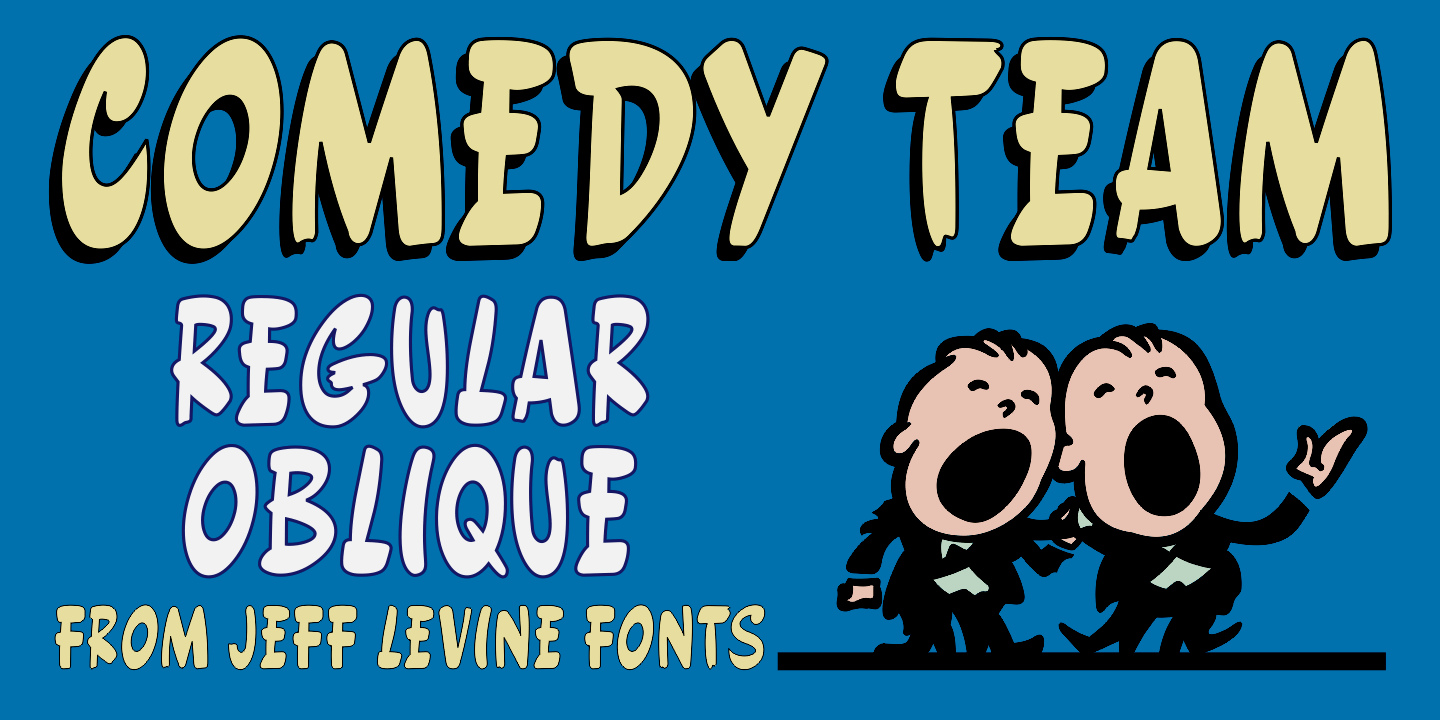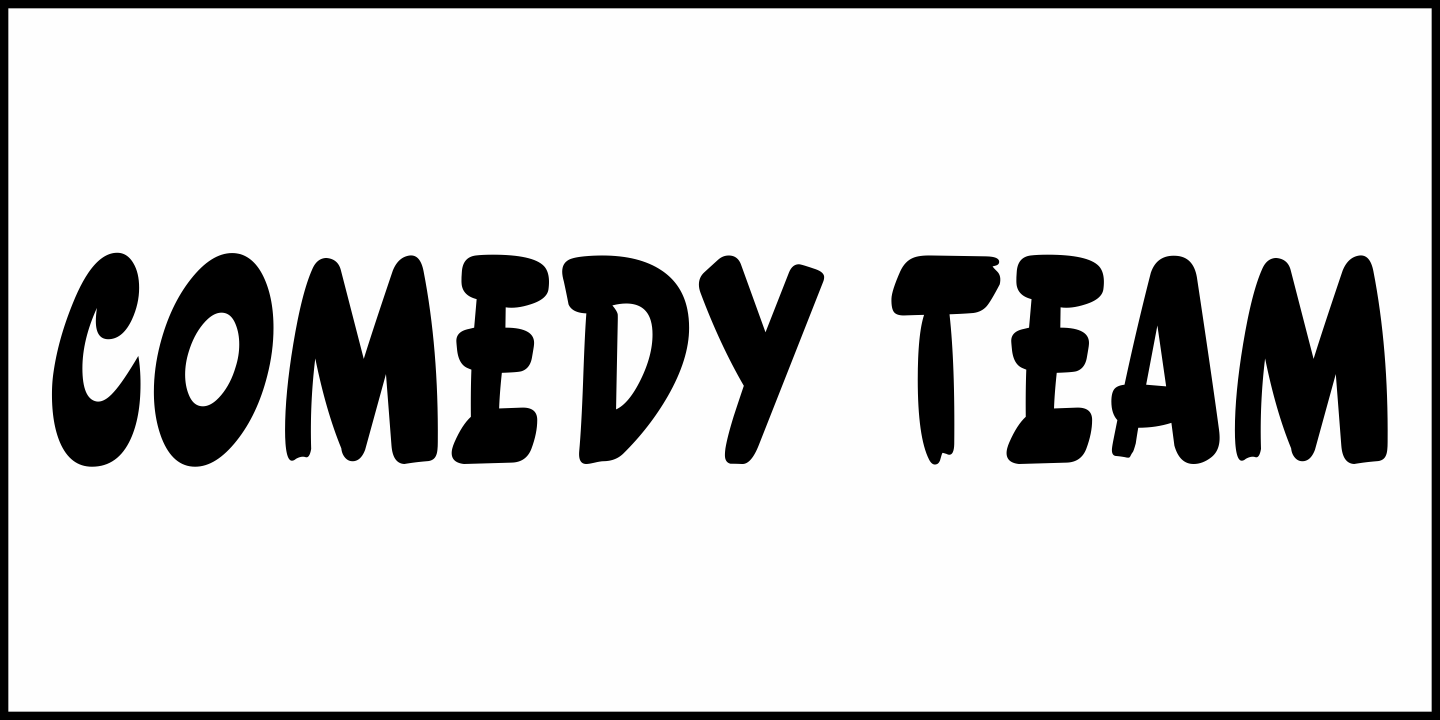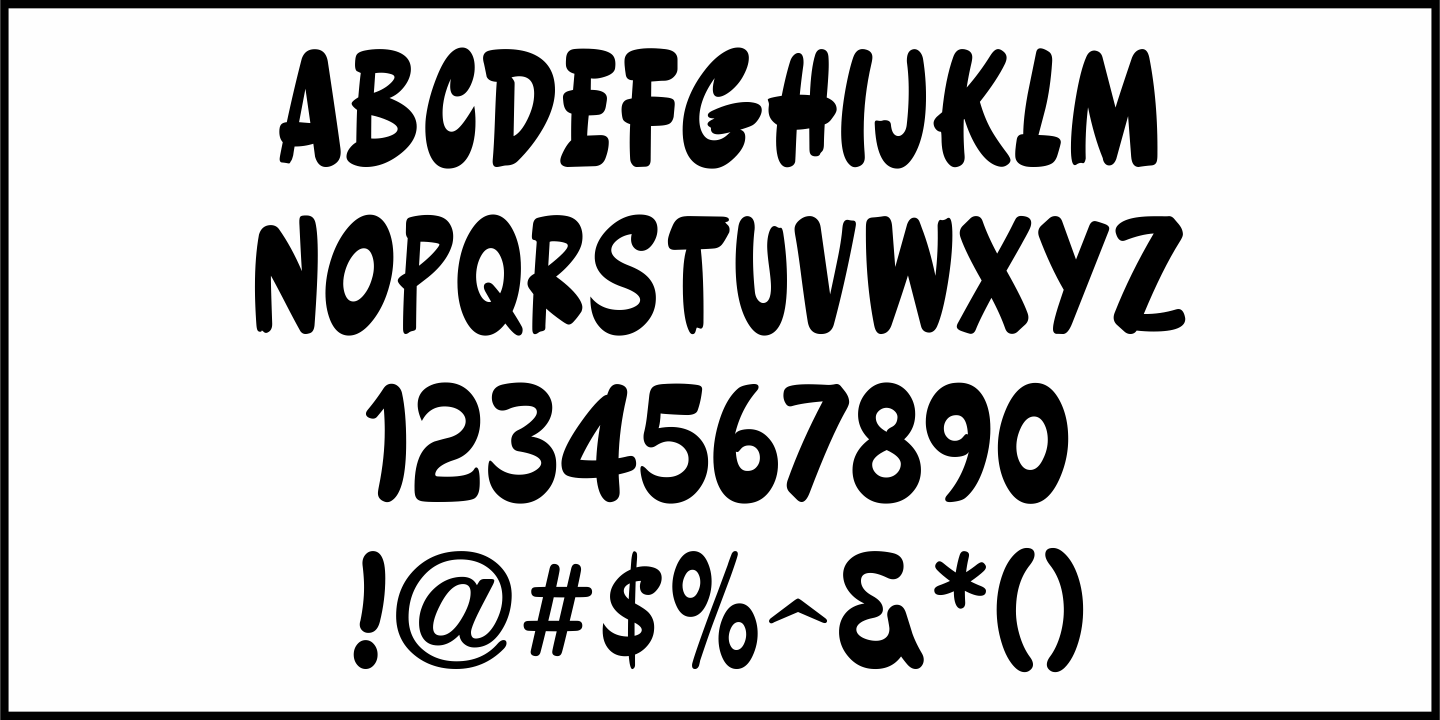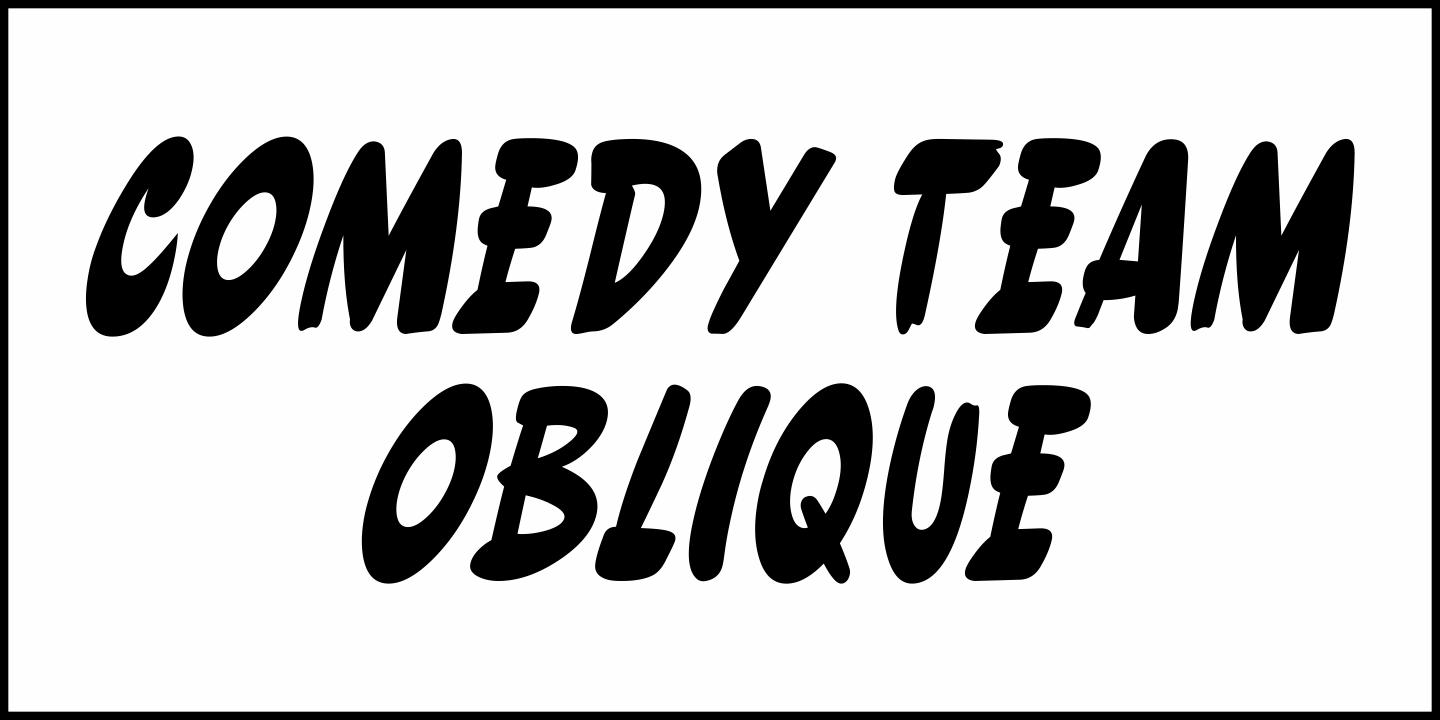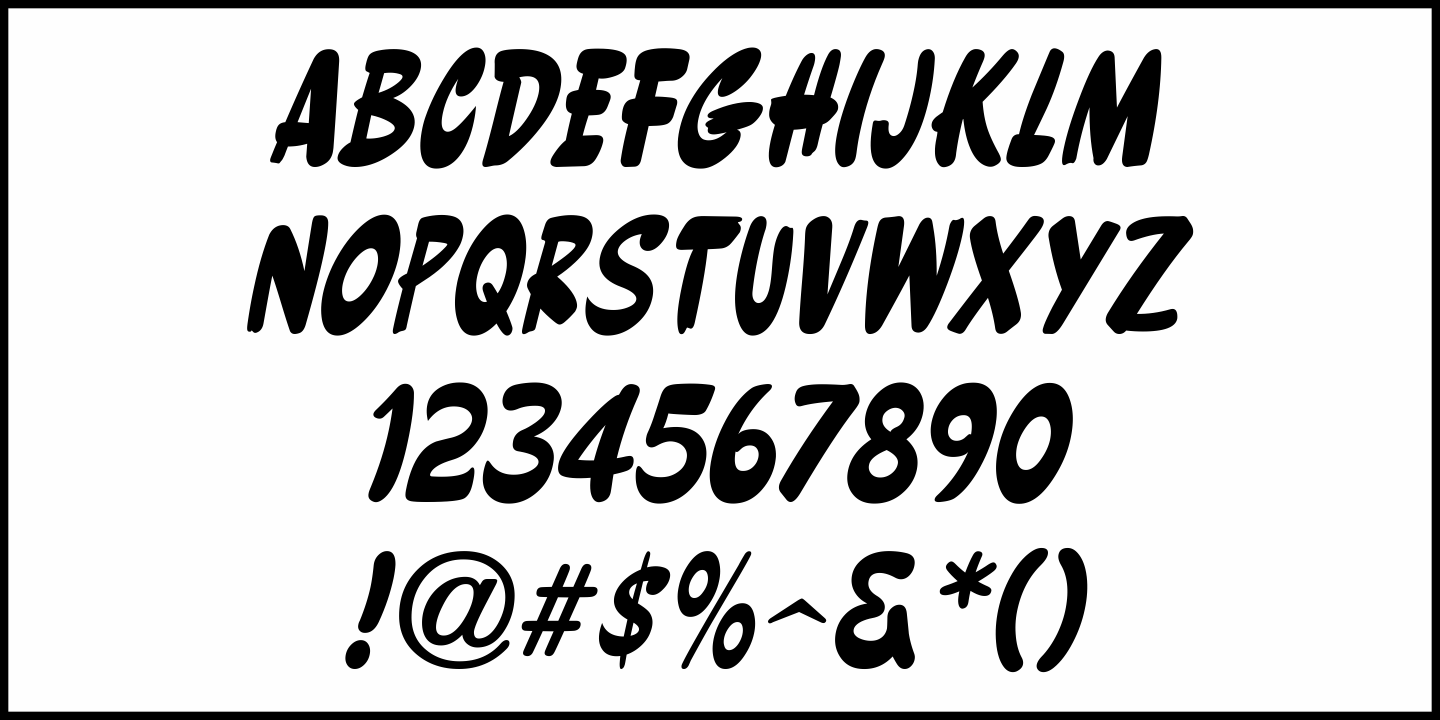
Comedy Team
The November 11, 1941 issue of The Film Daily carried an ad for "Look Who's Laughing", a comedy pairing two of the country's most popular radio teams of the time - Fibber McGee and Molly (Jim and Marian Jordan) and Edgard Bergen and Charlie McCarthy, along with Lucille Ball.
Word copy for the ad was hand lettered in a showcard brush style.
This has been recreated digitally as Comedy Team JNL and is available in both regular and oblique versions.